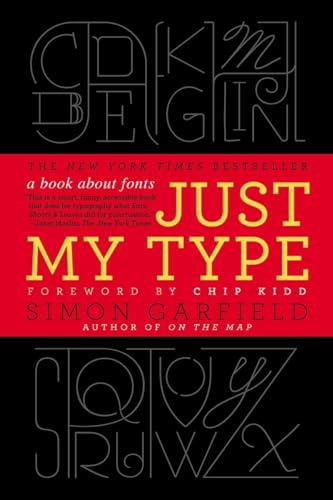
Just My Type
A Book About Fonts
Simon Garfield
BOOK REVIEW
Step into the vivid world of typography with Just My Type: A Book About Fonts by Simon Garfield, where each letter whispered secrets and tales of design mastery. This book is not merely about fonts; it's a spirited journey through the history, nuances, and psychological underpinnings of typefaces that populate our everyday signage, books, and digital screens. It offers a living, breathing chronicle that elevates our everyday interactions with text into an art form to be appreciated.
Fonts are woven into the fabric of communication, influencing how we perceive the written word. Garfield draws us into this realization with a flair that only an author of his caliber can muster. He serves up a delicious melange of anecdotes, interviews, and historical tidbits that make even the most unsuspecting reader appreciate the craft behind the lettering we often take for granted. Ever wondered how Comic Sans became the poster child for typographic disdain? Garfield pulls no punches, showcasing the quirky tales behind typefaces that have sparked design debates and passionate opinions worldwide.
The sheer breadth of Just My Type is astonishing. Garfield meticulously explores how fonts embody personality traits, coalesce with culture, and impact our emotions. Did you know that the choice of typeface can flutter between evoking trustworthiness and sparking skepticism? This thought-provoking exploration will have you glancing at your email headlines or favorite book covers with fresh eyes. The impact of a well-chosen font can be intoxicating, creating a sensory experience that's often overlooked.
Readers have echoed their sentiments, sweeping through Garfield's insights with enthusiasm. Comments range from excitement about the vivid narratives to fascination with how typography influences branding and identity-a point made resonantly clear through striking examples, like the timeless elegance of Helvetica or the rebellious spirit of Graffiti fonts. Yet, as with any profound exploration, there are detractors who question whether the topic can sustain such a lengthy discourse. It is precisely in these criticisms that Garfield's mastery shines; he turns potential weaknesses into delightful detours punctuated by humor and wit.
Garfield guides you through the evolution of typography, flirting with its precursors like handwriting and engraving, and examining its rise in modern technology. He's not just telling a story but crafting a love letter to the creativity that shapes our messages. The beauty of this book lies in its ability to engage anyone-whether you're a seasoned designer or simply someone who admires a well-crafted sign. Ultimately, Just My Type shifts your understanding of typography from mundane to magical, a palpable transformation that leaves readers quite literally spellbound.
As you dive deeper into Garfield's riveting journey, your motivations for choosing fonts in personal or professional capacities will surely evolve. The pages are peppered with names and events that have transcended the confines of typography to influence culture at large-take for instance the iconic use of type in film posters that allure viewers into cinema seats. You will find yourself equipped with newfound respect for the unsung heroes in the world of design.
By the time you turn the last page, you'll be left with a profound appreciation for the art of letters, and perhaps even a bit of envy for those who wield them with elegance and purpose. So, do not shy away from the invitation this book presents-embrace the art of typography, and let Simon Garfield show you how to find beauty in every curve and line. Your perception will never be the same.